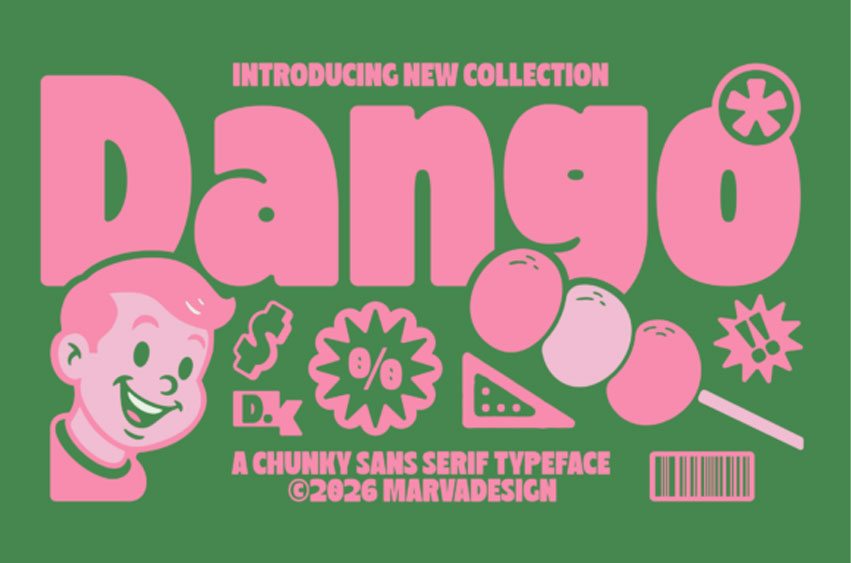
Dango Font Indulge your designs with the sweet, substantial presence of Dango, a chunky sans serif typeface that packs a playful punch. This ultra-bold display font features heavy, rounded letterforms inspired by the soft, chewy aesthetic of traditional Japanese dumplings.
With its minimal negative space and “maximum-impact” weight, Dango is the premier choice for vibrant snack packaging, independent streetwear branding, modern toy store logos, and high-energy “pop-art” social media headers.